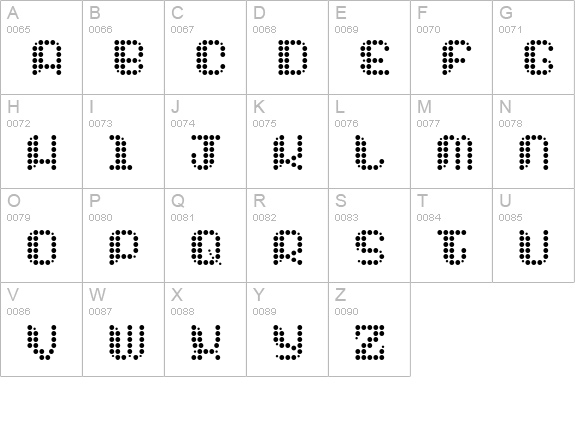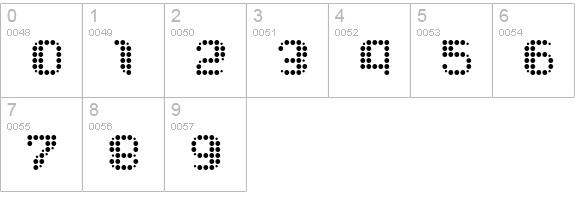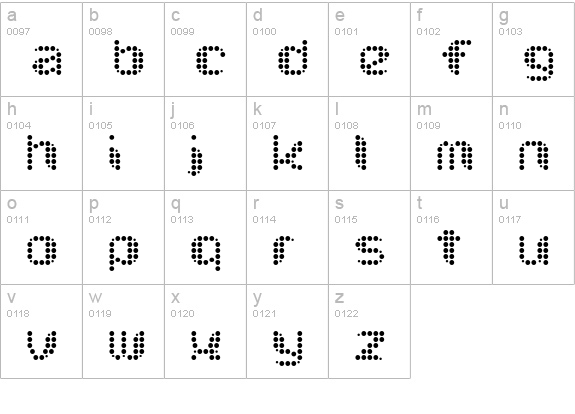
Chuck Chillout Font Details
Chuck Chillout font is a modern and stylish typeface that exudes a cool and laid-back vibe. With its bold and eye-catching design, this font is perfect for making a statement in your designs. The sleek and edgy look of Chuck Chillout font adds a touch of urban flair to any project, making it ideal for posters, logos, headlines, and more. The best part? Chuck Chillout font is completely free to download at FontsMarket.com. You can easily access this versatile font and enhance your creative projects without any cost. Don't miss out on this fantastic opportunity to add a touch of sophistication and personality to your designs with Chuck Chillout font. Download it today and let your creativity shine!